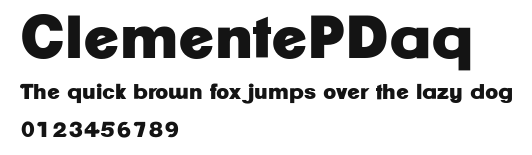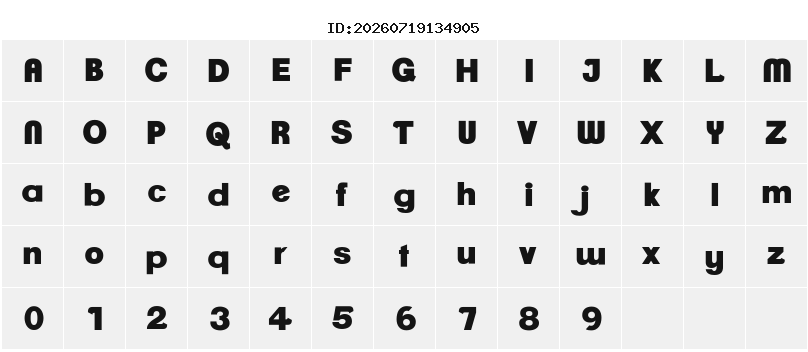
• Font Name: ClementePDaq
• Manufacturer: Prescott Design
About ClementePDaq.ttf
ClementePDaq.ttf is a modern, elegant sans-serif font designed for ultimate readability and visual harmony. Perfect for branding, headlines, web design, and print materials.